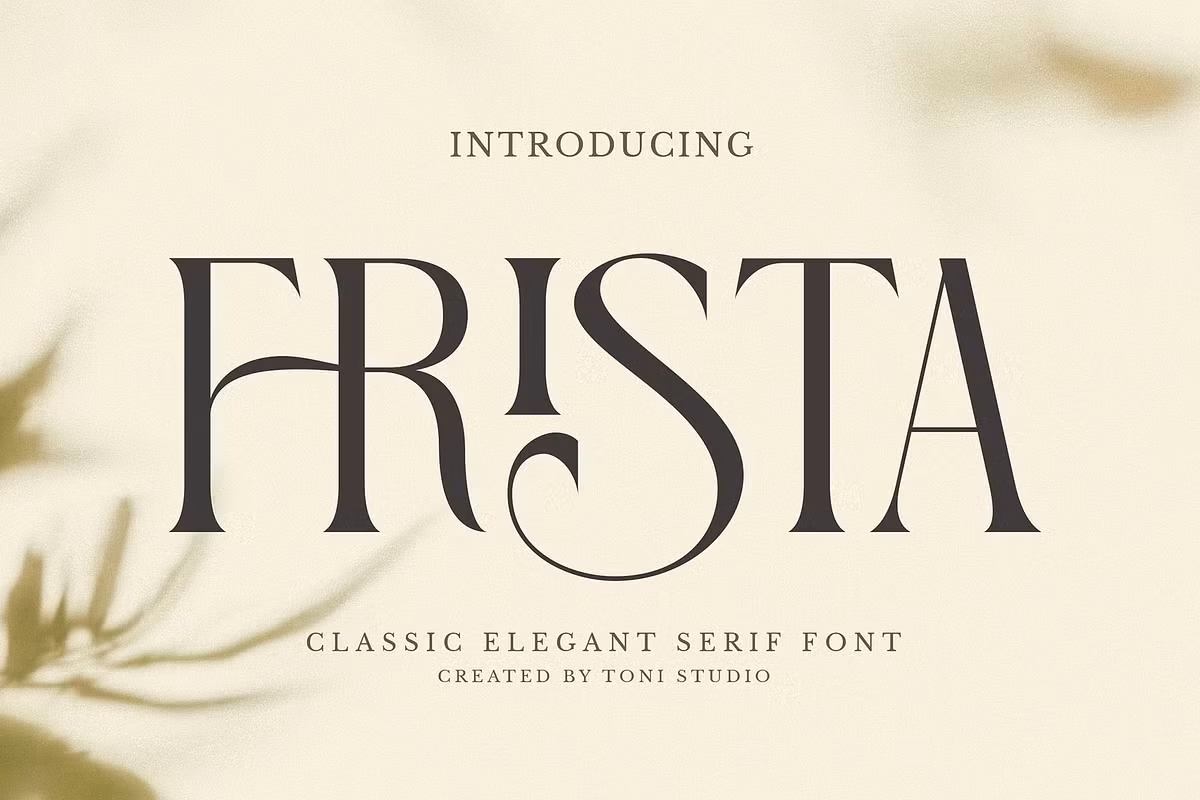
FRISTA || modern ligature Free Download
FRISTA || Modern Ligature Font Free Download is a sophisticated typeface that blends contemporary elegance with artistic flair. Designed with stylish ligatures and smooth transitions, FRISTA is perfect for high-end branding, fashion editorials, logo design, and luxury packaging. Its unique characters give your typography a refined, custom-made look that turns heads and sets your project apart.
What makes FRISTA || Modern Ligature Font Free Download truly special is its attention to detail—every letter flows seamlessly with others, thanks to thoughtfully crafted ligatures that add rhythm and harmony to your text. Whether you're designing a classy website header, an elegant wedding invitation, or a chic social media graphic, FRISTA brings undeniable style and grace.